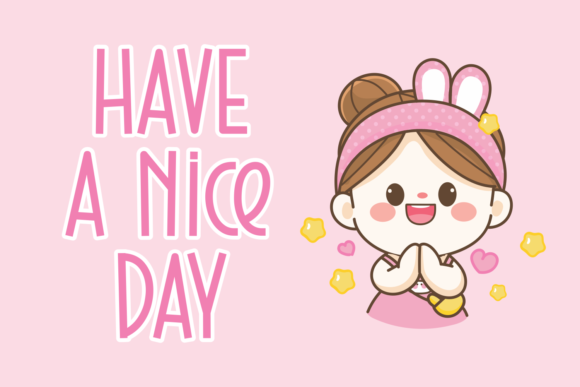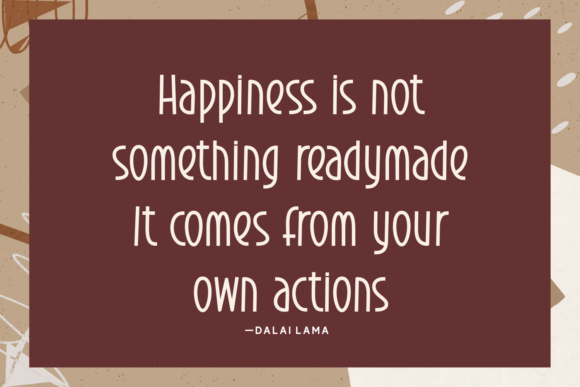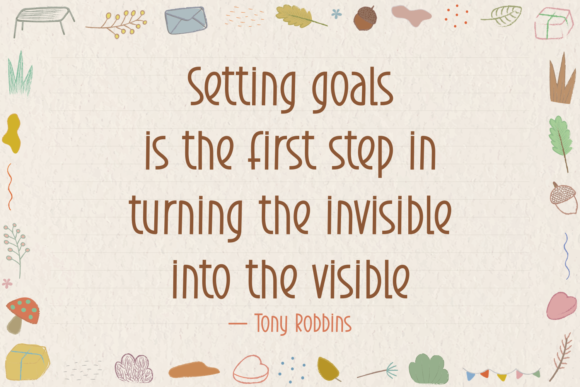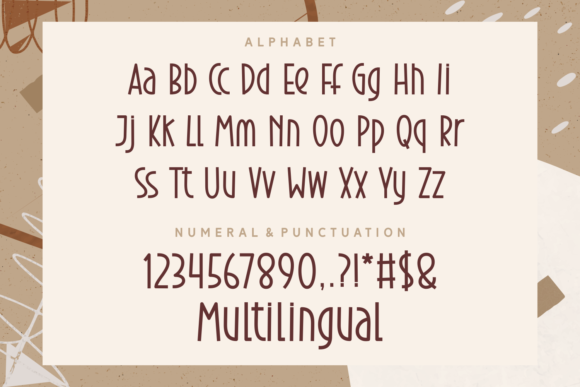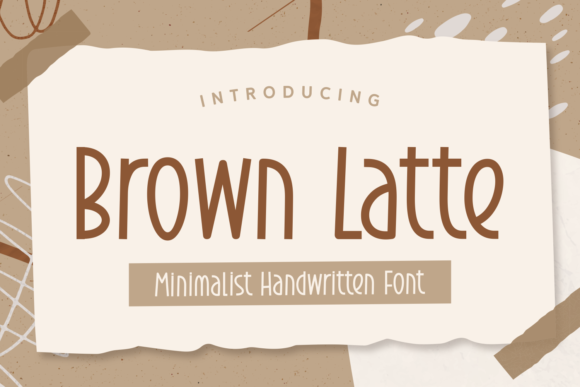
Brown Latte Font: The Ultimate Minimalist Handwritten Font for Modern Designs
In the world of typography, sometimes less is more. A simple yet elegant font can speak volumes and elevate your designs to a whole new level. This is where the Brown Latte Font comes in – a minimalist handwritten font that boasts modern characters and a versatile aesthetic. Whether you’re a designer, crafter, or digital artist, this font is an essential staple for your library to enhance any craft, print, digital design, and more!
The Beauty of Minimalism
The Brown Latte Font embodies the concept of minimalism, stripping away unnecessary embellishments to reveal a clean and sophisticated design. Its handwritten characters exude a sense of warmth and approachability, making it perfect for a wide range of applications. From branding and packaging to digital marketing materials and crafts, this font’s understated elegance will add a touch of refinement to your projects.
Key Features of Brown Latte Font
- Modern Characters: The Brown Latte Font features modern characters that are both stylish and legible, ensuring your designs look fresh and contemporary.
- Minimalist Design: The font’s minimalist approach makes it incredibly versatile, allowing it to seamlessly integrate with various design styles and themes.
- Handwritten Aesthetic: The font’s handwritten nature adds a personal touch to your designs, making them more relatable and engaging.
- Easy to Read: The Brown Latte Font is optimized for readability, ensuring your message is conveyed clearly and effectively.
The Brown Latte Font is an excellent addition to any designer’s or crafter’s toolkit. Its flexibility and wide range of applications make it an ideal choice for:
- Branding and Identity: Create a lasting impression with your brand’s visual identity, using the Brown Latte Font for logos, business cards, and letterheads.
- Digital Marketing: Elevate your digital marketing materials, including social media graphics, email newsletters, and website content, with this stylish font.
- Crafts and DIY Projects: Add a personal touch to your handmade crafts, such as journals, planners, and gift tags, with the Brown Latte Font.
- Print Design: Use the font for various print design projects, including brochures, flyers, posters, and more.
Why Choose Brown Latte Font?
With so many fonts available, why choose the Brown Latte Font? Here are just a few compelling reasons:
- Unique Aesthetic: The font’s distinctive minimalist design sets it apart from more traditional fonts, giving your designs a fresh and modern look.
- Highly Versatile: The Brown Latte Font can be used for a wide range of applications, from digital designs to print materials and crafts.
In conclusion, the Brown Latte Font is an exceptional addition to any design library. Its minimalist handwritten design, modern characters, and versatility make it an essential tool for designers, crafters, and digital artists. Whether you’re looking to elevate your brand’s visual identity, create stunning digital marketing materials, or add a personal touch to your handmade crafts, this font is sure to impress. So why wait? Download the Brown Latte Font today and discover the power of minimalist typography!